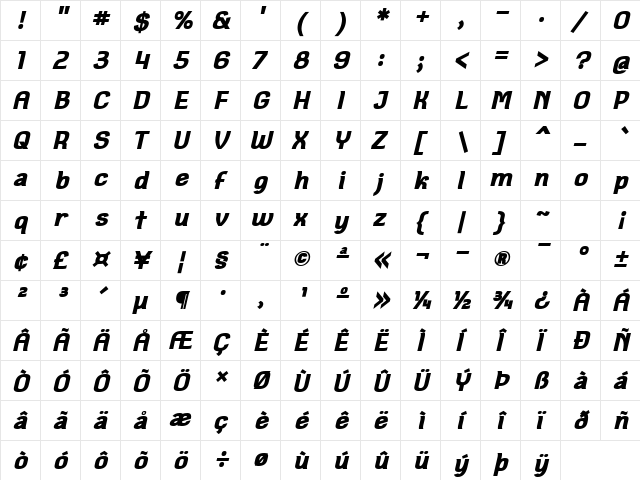
Square Antiqua Bold Oblique
Design Context for Square Antiqua Typeface
Square Antiqua is a composed and adaptable typeface that performs quietly and consistently across a wide range of design contexts. The slanted form adds forward momentum and visual energy. Its bold stroke weight gives it real presence on the page.
Pro Tip: Use Square Antiqua for emphasis, pull quotes, and subheadings where its slanted energy can add rhythm to the layout.